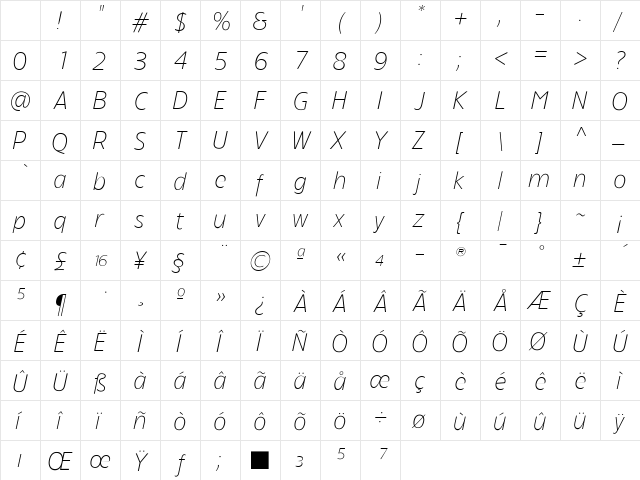
Complete TFForever Light Italic glyph index. Displaying only characters natively supported by TFForever Light Italic font.
TFForever is a composed and adaptable typeface that performs quietly and consistently across a wide range of design contexts. The slanted form adds forward momentum and visual energy. Its slender proportions lend an understated elegance to any composition.
Pro Tip: Use TFForever for emphasis, pull quotes, and subheadings where its slanted energy can add rhythm to the layout.